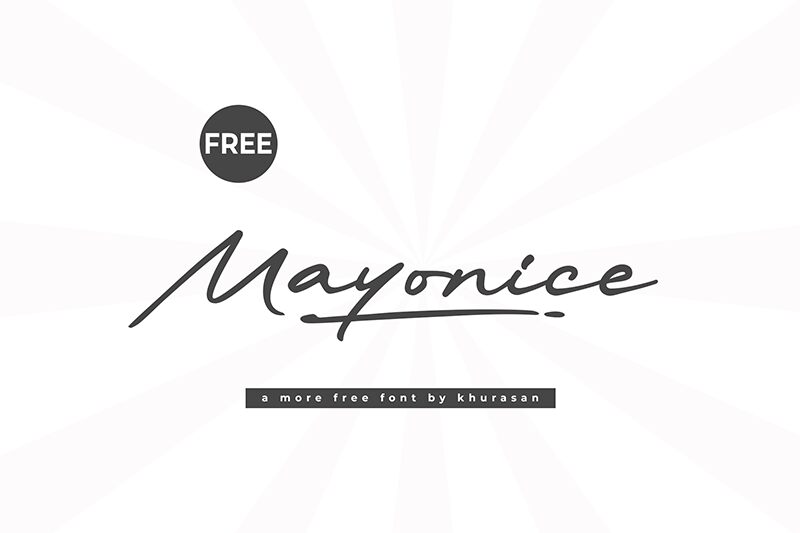
Mayonice
Mayonice font is a free handwritten signature font by Khurasan. This elegant typeface has a smooth flow giving it a contemporary script look with more expressive character. It also offers casual elegance which is clear and sweet.
Mayonice is excellent for logotype design, product packaging, branding, photography captions, social media posts and ads, magazines covers and titles, invitation cards and postcards.